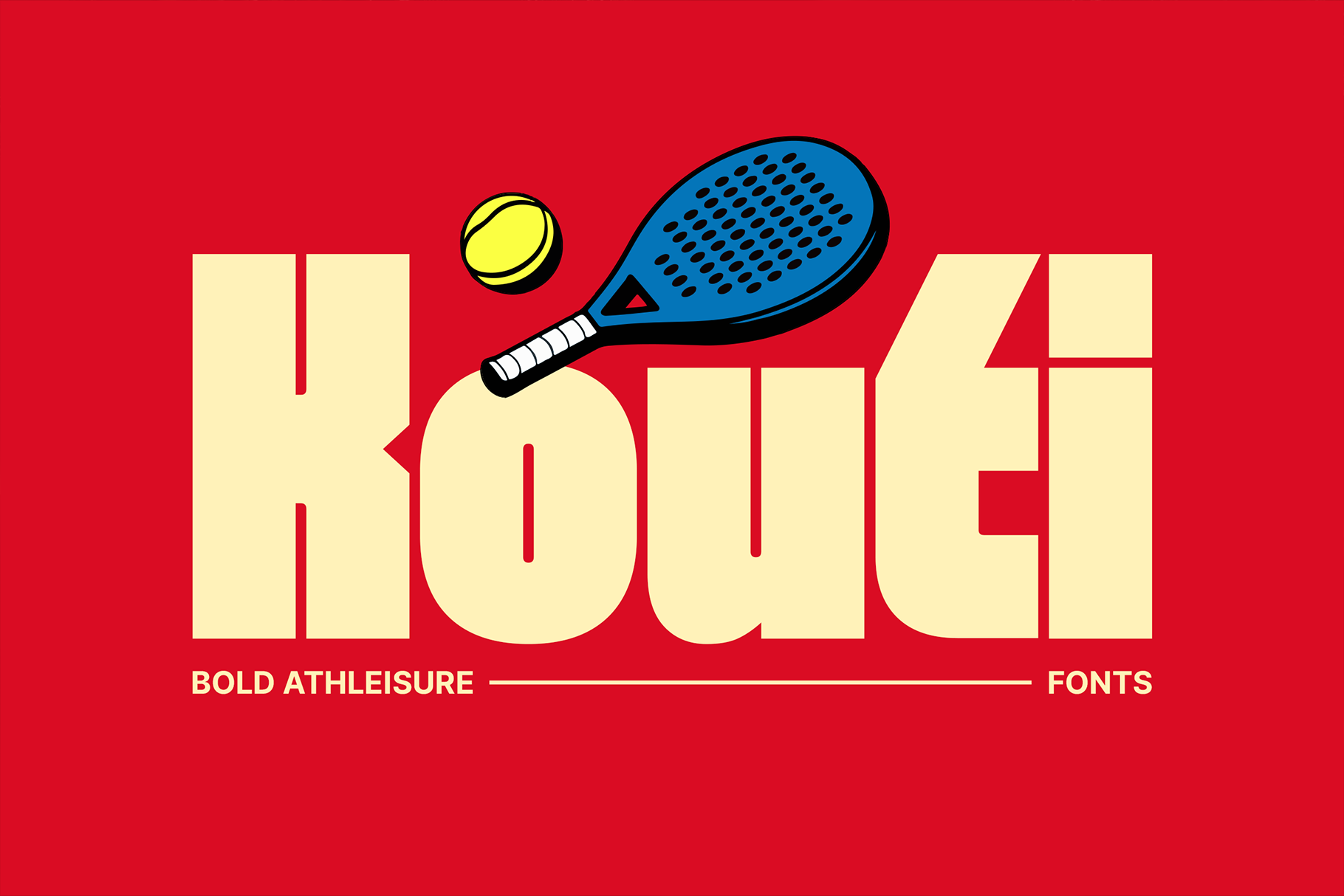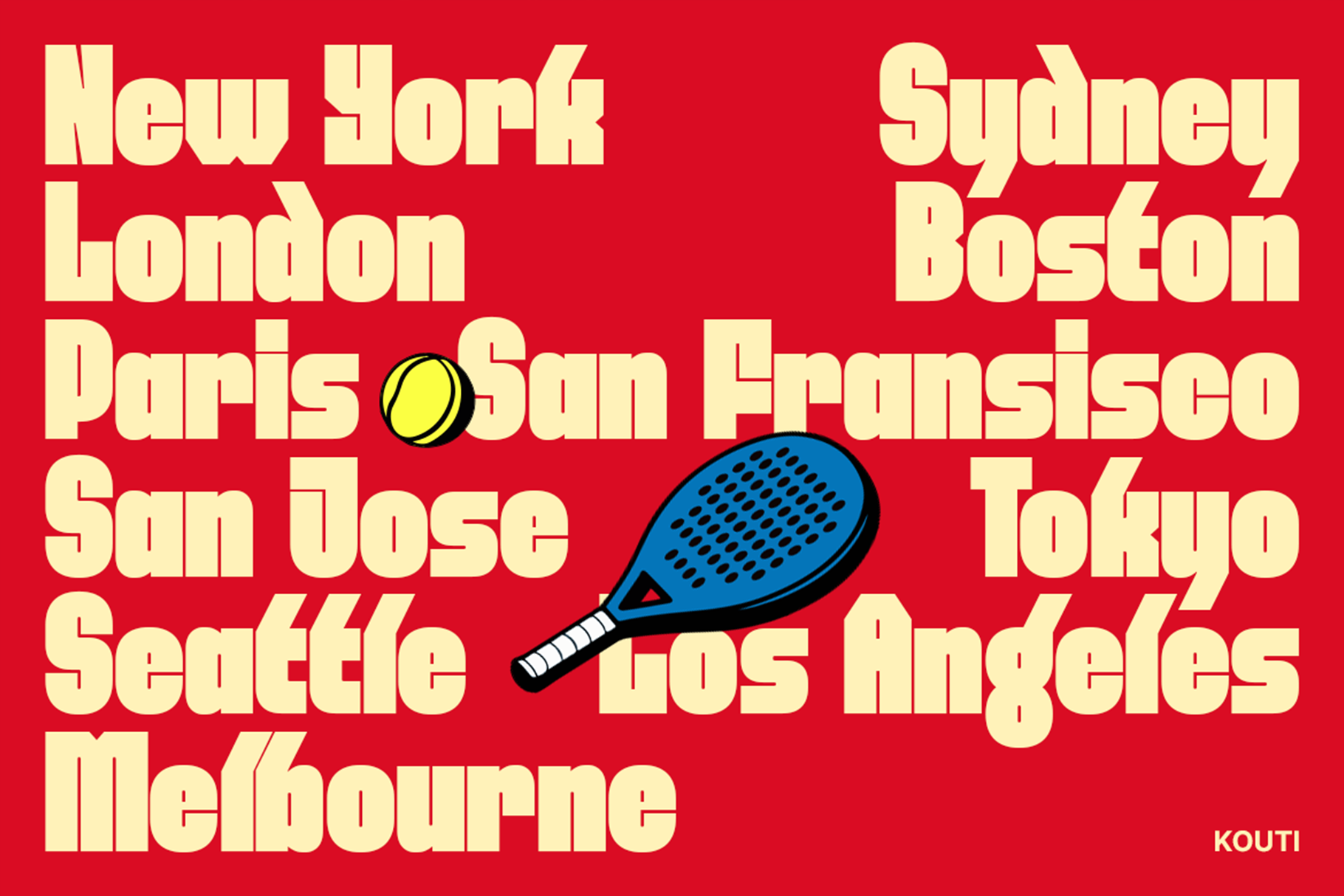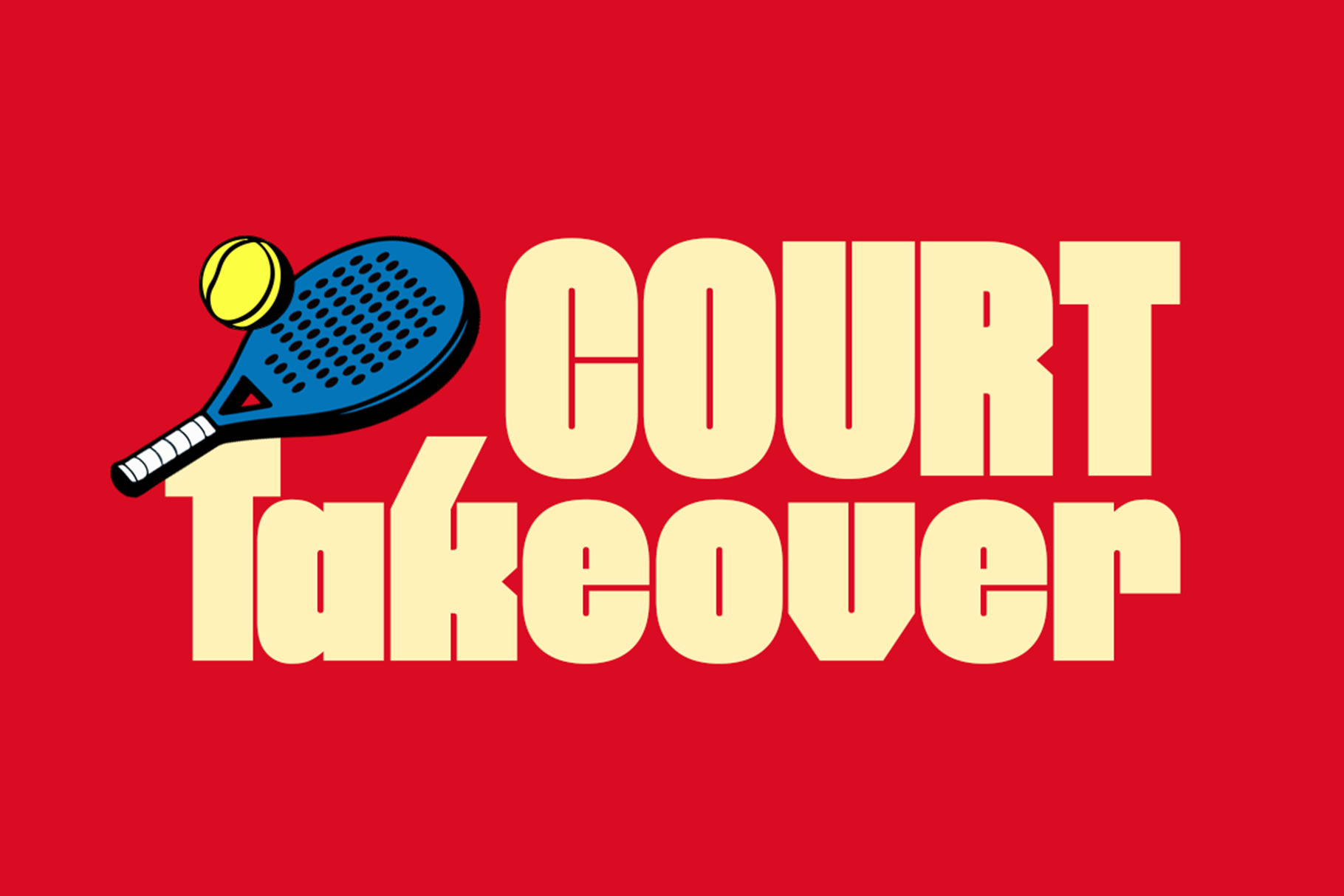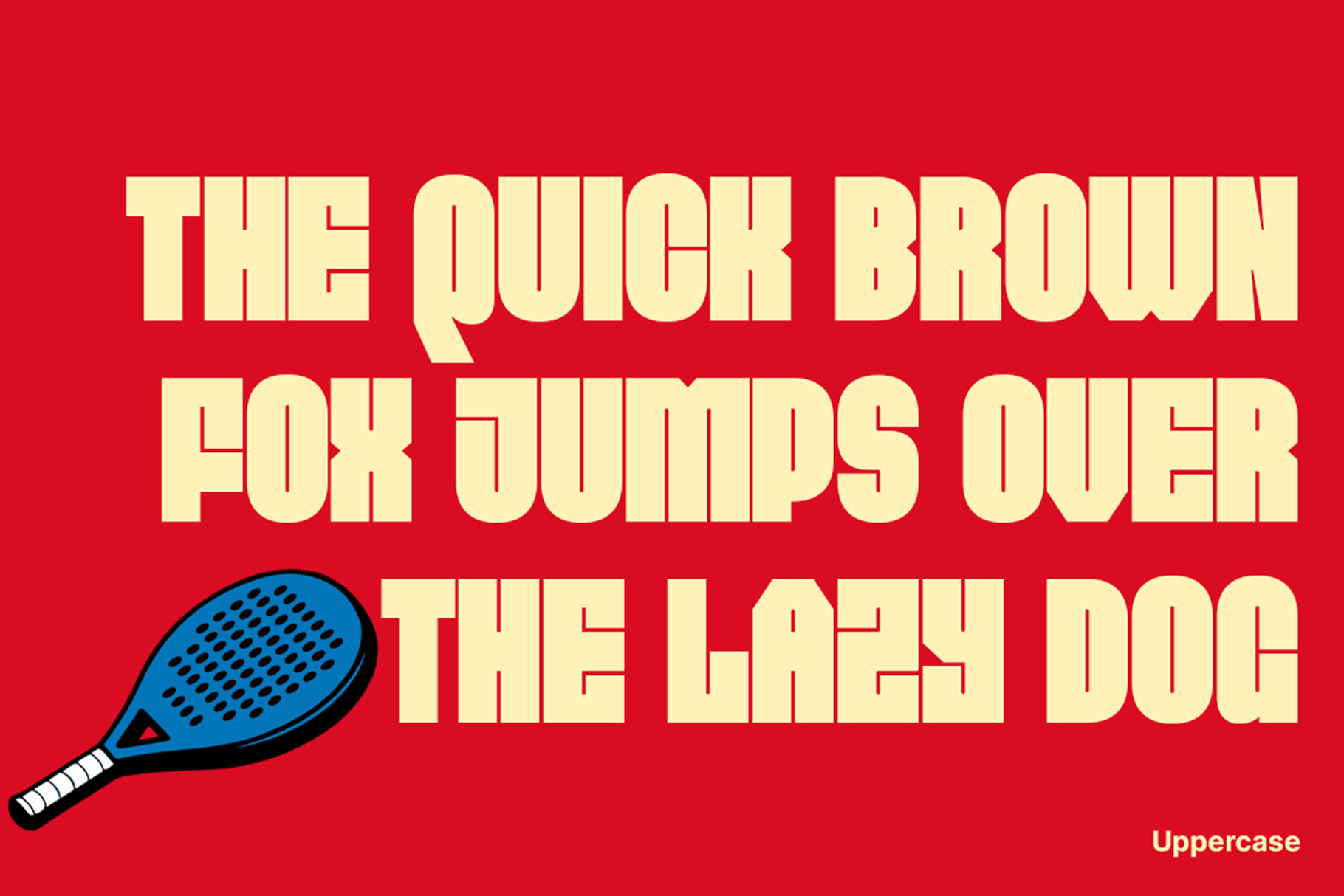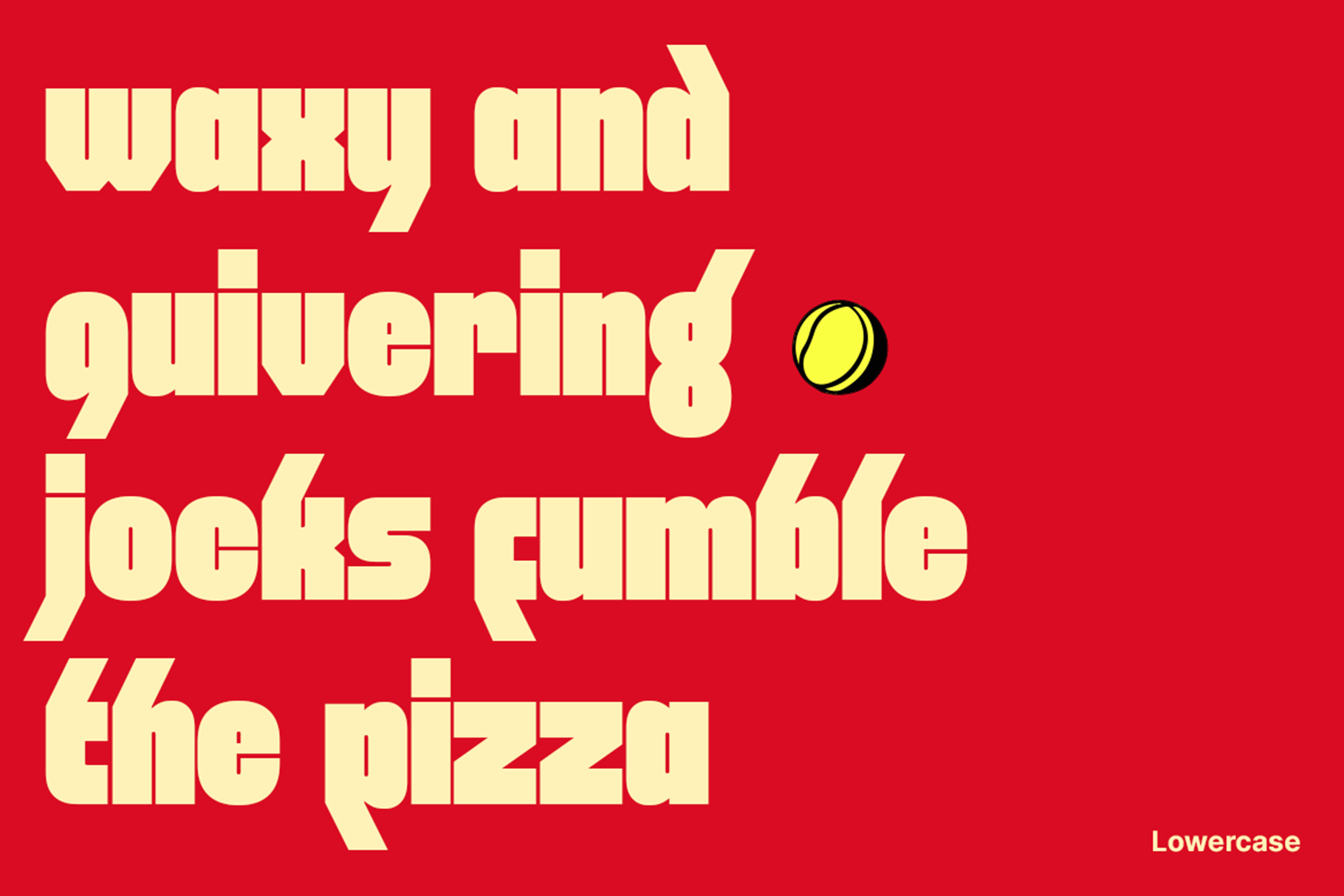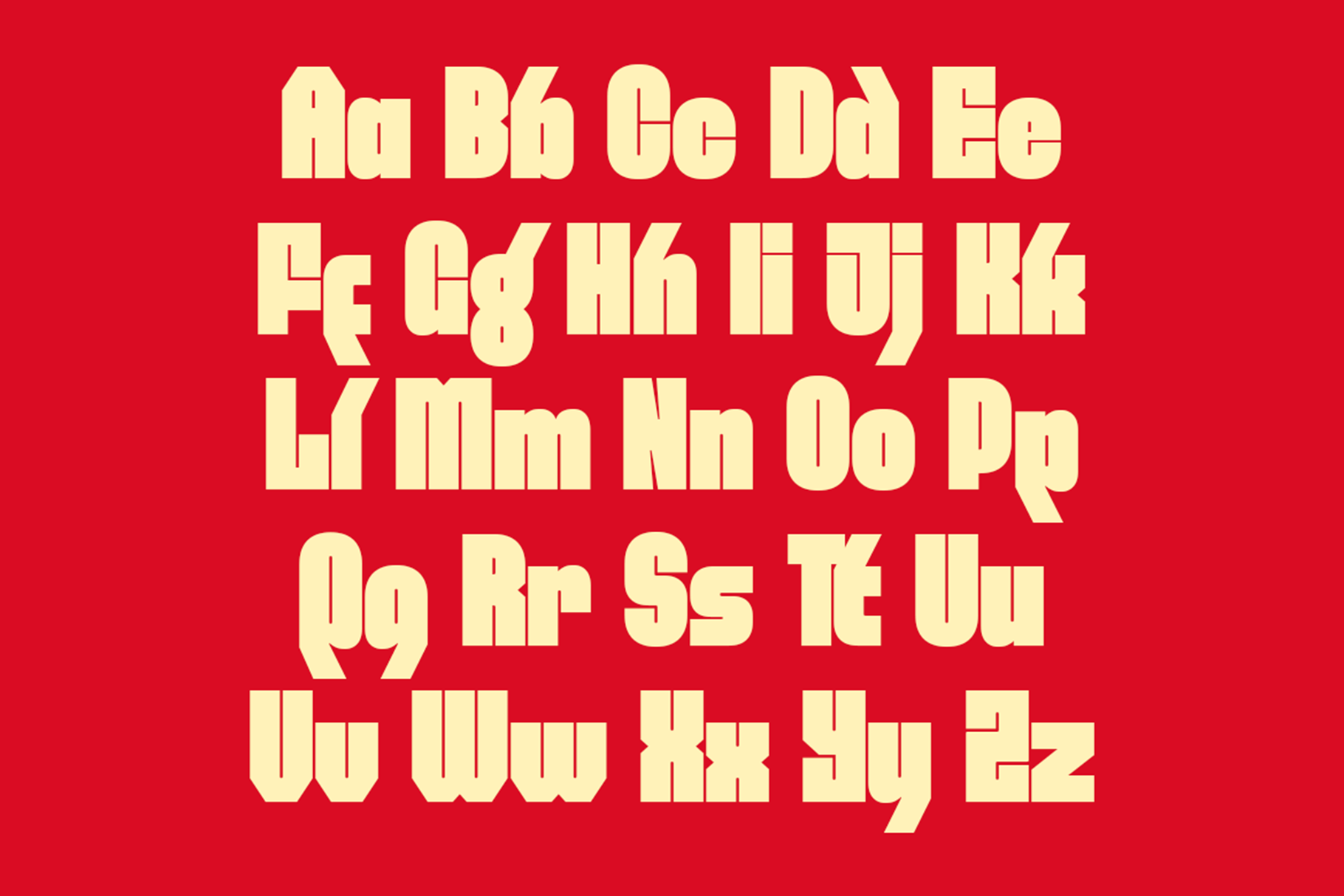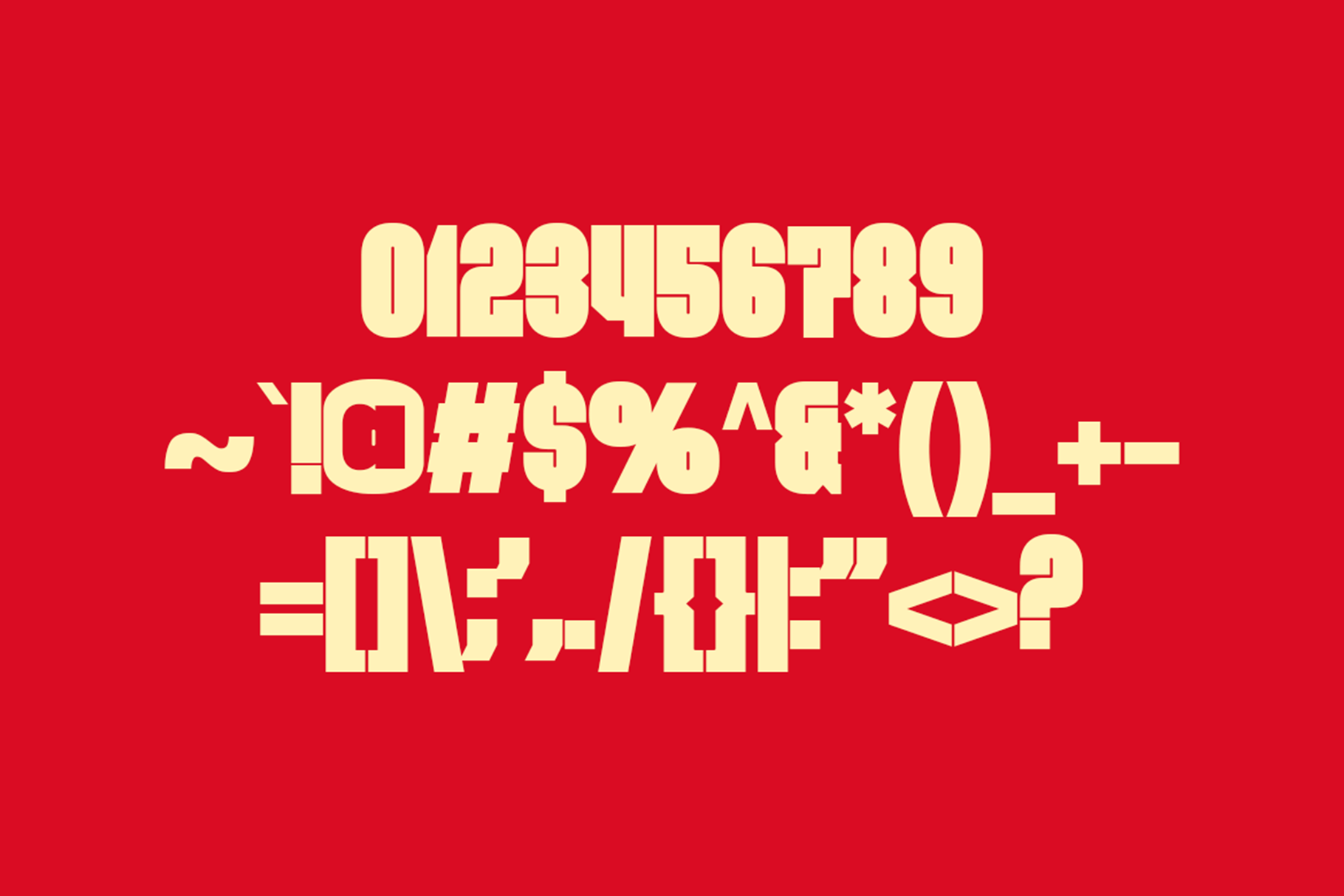
Kouti – Bold Athleisure Fonts
Get ready to inject your design projects with an unbeatable burst of energy! Introducing Kouti, the display typeface that captures the spirit of modern athleisure and bold, graphic design. Inspired by the dynamic world of sport—from the fast-paced game of padel to high-performance running gear—Kouti is built to make a powerful, unforgettable statement.
• Bold & Pop Aesthetic: Kouti delivers maximum impact with its super-heavy weight and vibrant, catchy appeal, instantly demanding attention in any design context.
• Modern & Unique Character: This isn’t just another heavy sans-serif. Kouti features unique, custom shapes and unexpected visual characteristics in its letterforms, giving your branding a distinctive edge and superior visual texture that sets it apart from competitor fonts.
• Sporty Athleisure Inspiration: Directly reflecting the intersection of high-fashion and athleticism, Kouti embodies the confidence and energy of the athleisure trend, making it an essential tool for sport-related branding.
• Versatile Display Use: While perfect for sports, its powerful structure and clear readability make it ideal for headlines, posters, packaging, and high-impact social media graphics.
Perfect For High-Impact Projects